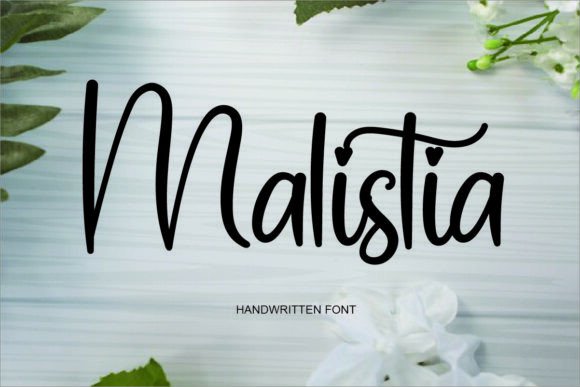
Malistia Font: A Lovely and Timeless Handwritten Font for Your Design Needs
Are you looking for a font that can add a touch of elegance and sophistication to your designs? Look no further than Malistia Font, a beautiful and timeless handwritten font that is perfect for creating eye-catching logos, branding, and quotes. In this article, we will explore the features and benefits of Malistia Font, and why it is the best choice for your design needs.
What is Malistia Font?
Malistia Font is a handwritten font that is designed to be both elegant and timeless. It is a unique and beautiful font that features a distinctive touch, making it perfect for adding a personal touch to your designs. The font is designed to be versatile, making it suitable for a wide range of design applications, from logos and branding to quotes and social media graphics.
Features of Malistia Font
Malistia Font has several features that make it an excellent choice for designers. Some of its key features include:
- Unique and Beautiful Touch: Every letter in Malistia Font has a unique and beautiful touch, which makes it stand out from other fonts.
- Handwritten Style: Malistia Font is a handwritten font, which gives it a personal and elegant touch.
- Timeless Design: The font is designed to be timeless, making it suitable for designs that need to stand the test of time.
- Versatile: Malistia Font is versatile and can be used for a wide range of design applications.
Benefits of Using Malistia Font
There are several benefits to using Malistia Font in your designs. Some of the benefits include:
- Elegant and Sophisticated: Malistia Font adds an elegant and sophisticated touch to your designs, making them stand out from the crowd.
- Personal Touch: The handwritten style of Malistia Font gives your designs a personal touch, making them more relatable and engaging.
- Easy to Read: Malistia Font is easy to read, making it perfect for designs that require a lot of text, such as quotes and social media graphics.
- Customizable: Malistia Font is customizable, allowing you to adjust the font size, color, and style to suit your design needs.
Why Choose Malistia Font?
There are several reasons why you should choose Malistia Font for your design needs. Some of the reasons include:
- Unique and Original: Malistia Font is a unique and original font that will make your designs stand out from the crowd.
- High-Quality: Malistia Font is a high-quality font that is designed to produce excellent results in a variety of design applications.
Design Applications of Malistia Font
Malistia Font is suitable for a wide range of design applications, including:
- Logos and Branding: Malistia Font is perfect for creating eye-catching logos and branding materials.
- Quotes and Social Media Graphics: Malistia Font is great for creating quotes and social media graphics that require a personal touch.
- Invitations and Cards: Malistia Font is suitable for creating invitations and cards for special occasions.
- Packaging and Advertising: Malistia Font can be used for packaging and advertising materials that require a elegant and sophisticated touch.
Malistia Font is a lovely and timeless handwritten font that is perfect for creating eye-catching logos, branding, and quotes. Its unique and beautiful touch makes it stand out from other fonts, and its versatility makes it suitable for a wide range of design applications. With its elegant and sophisticated touch, Malistia Font is an excellent choice for designers who want to add a personal touch to their designs.
- Q: What is Malistia Font?
A: Malistia Font is a handwritten font that is designed to be elegant and timeless.
- Q: What are the features of Malistia Font?
A: Malistia Font features a unique and beautiful touch, a handwritten style, and a timeless design.
- Q: What are the benefits of using Malistia Font?
A: The benefits of using Malistia Font include adding an elegant and sophisticated touch to your designs, giving your designs a personal touch, and being easy to read.